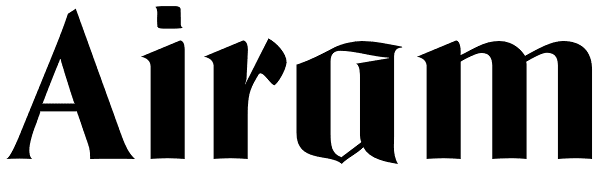
Airam
Maria Martina Schmitt was born in Vienna, Austria in 1950. Since 1998, she has been working as a freelance designer, focusing on cultural collateral, economic publications, illustration, type design, and logo design. Airam blends contemporary...